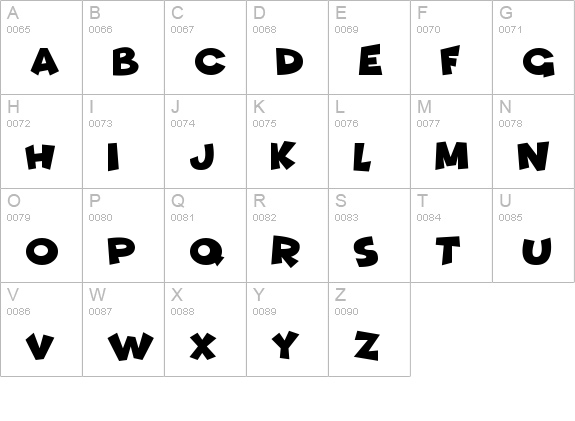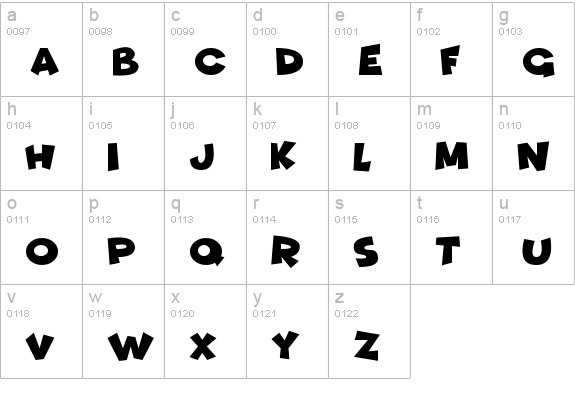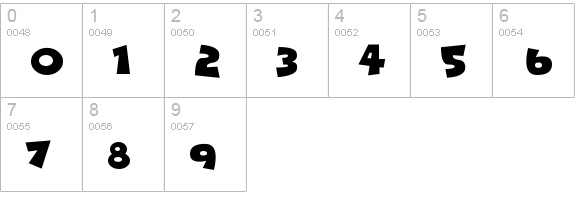
Funhouse Font Details
Funhouse font is a whimsical and playful typeface that exudes a sense of fun and excitement. With its quirky design and vibrant colors, this font is perfect for adding a touch of whimsy to any project. Whether you're creating party invitations, greeting cards, or social media graphics, Funhouse font is sure to bring a smile to your audience's face. What's even better is that Funhouse font is completely free to download at FontsMarket.com. This means you can easily access this delightful font and start using it in your designs without any cost involved. So go ahead and let your creativity run wild with Funhouse font - the perfect choice for adding a fun and playful element to your projects!